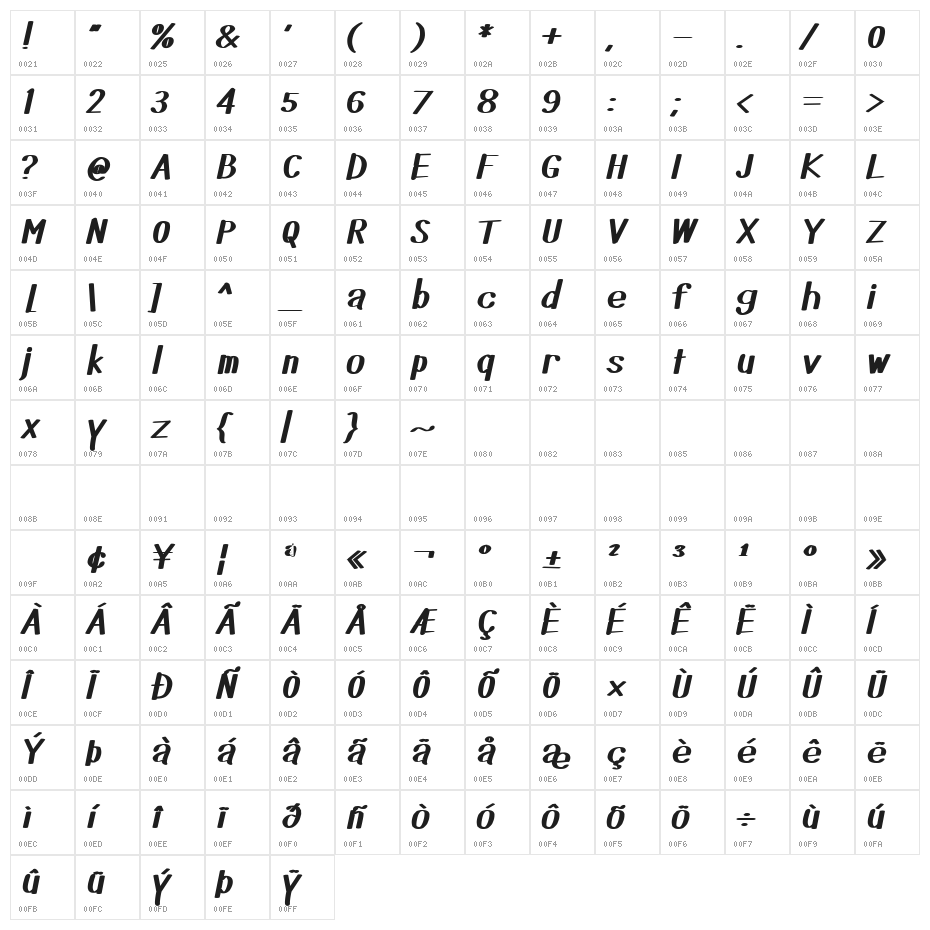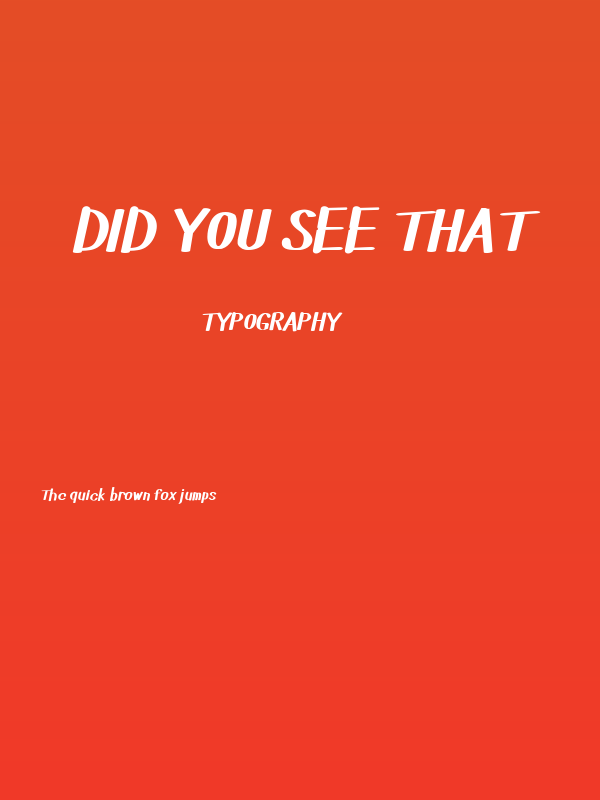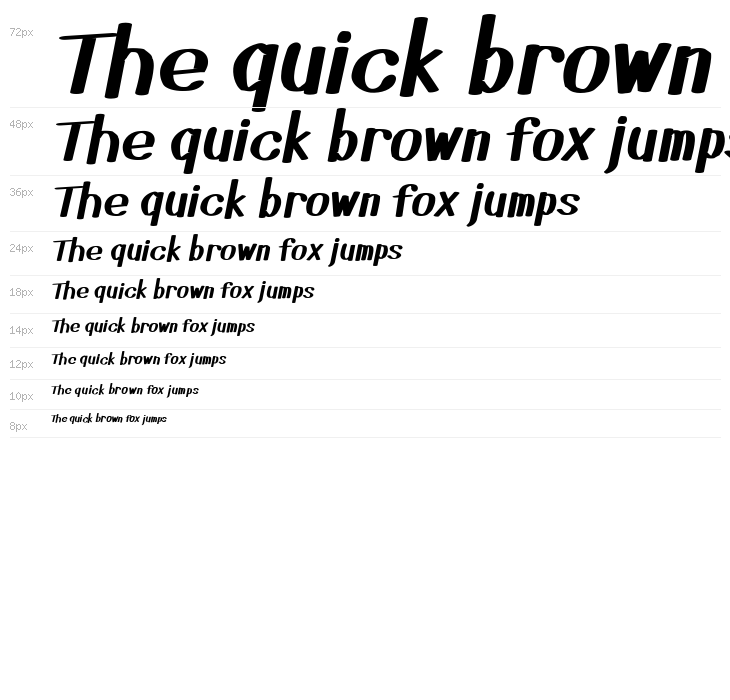
Did you see that Font
Did you see that Description
This font features a bold and dynamic script style with a slight slant, giving it an energetic and modern feel. The uppercase letters are slightly taller than the lowercase, maintaining a consistent stroke weight throughout. The characters are well-defined with smooth curves and sharp edges, creating a sense of movement and fluidity. The numerals are equally bold, matching the style of the letters, and the special characters are designed to complement the overall aesthetic. The font's playful yet professional appearance makes it suitable for a variety of creative projects.
| Proposed Projects | Ideal for branding, advertising, posters, and social media graphics. |